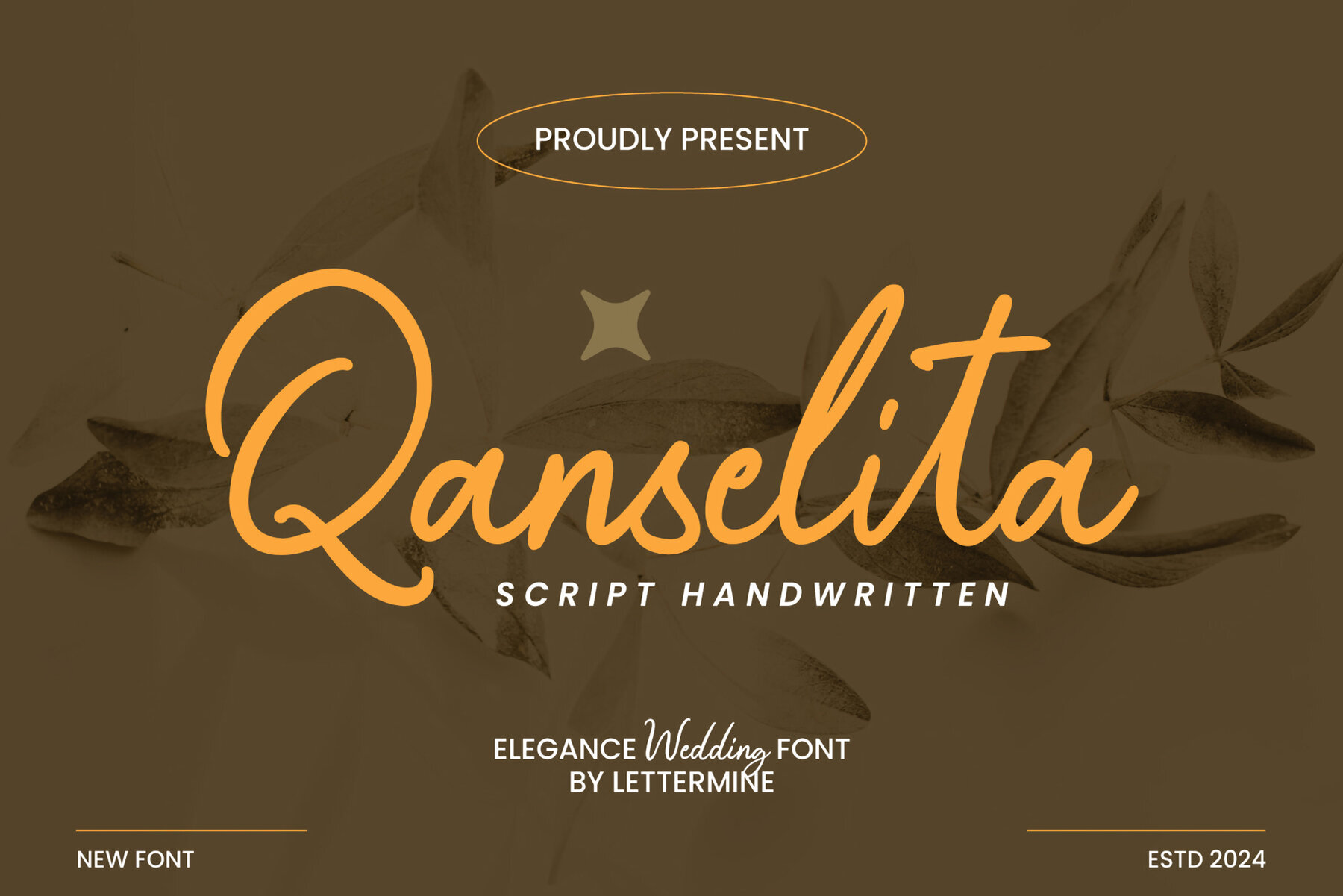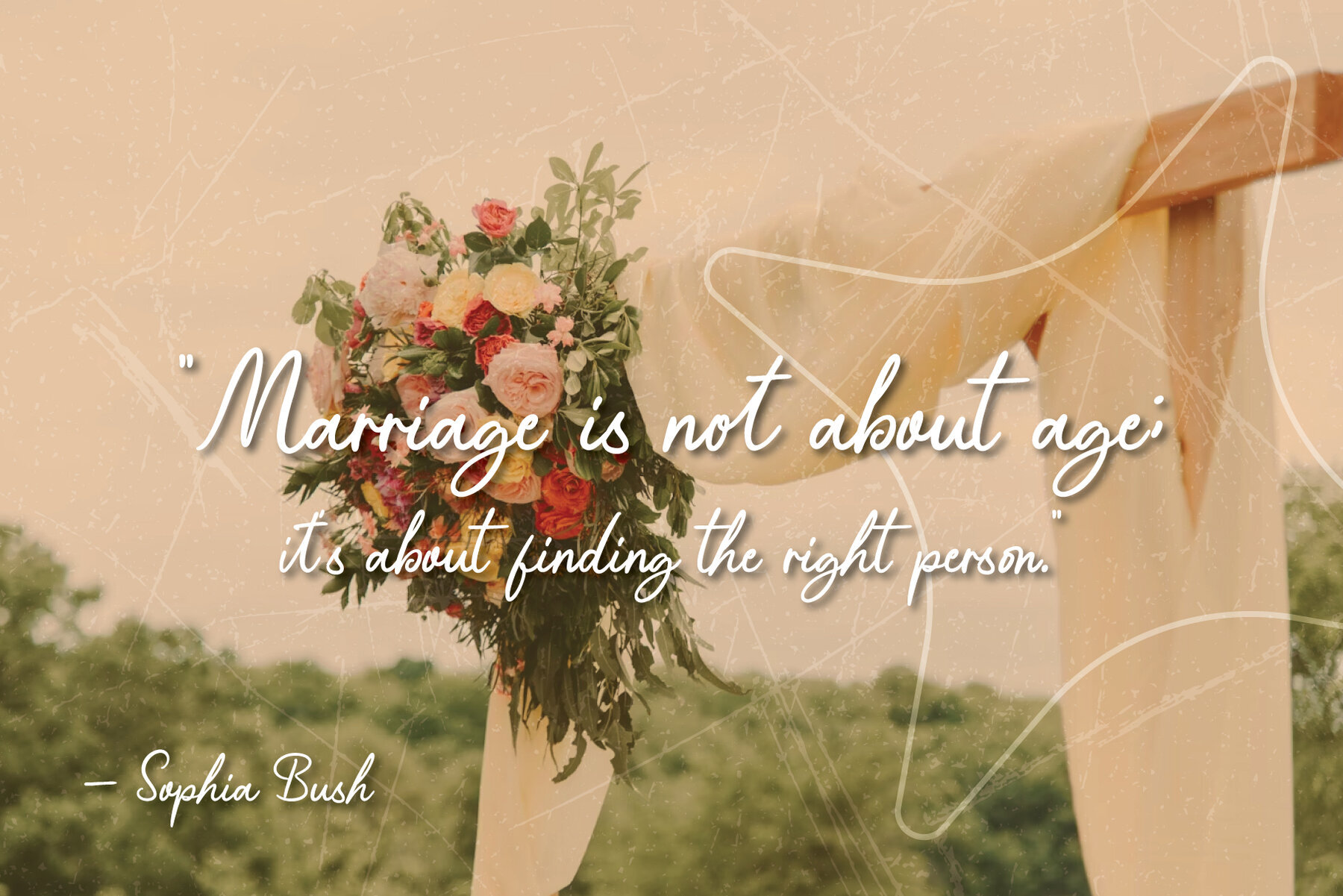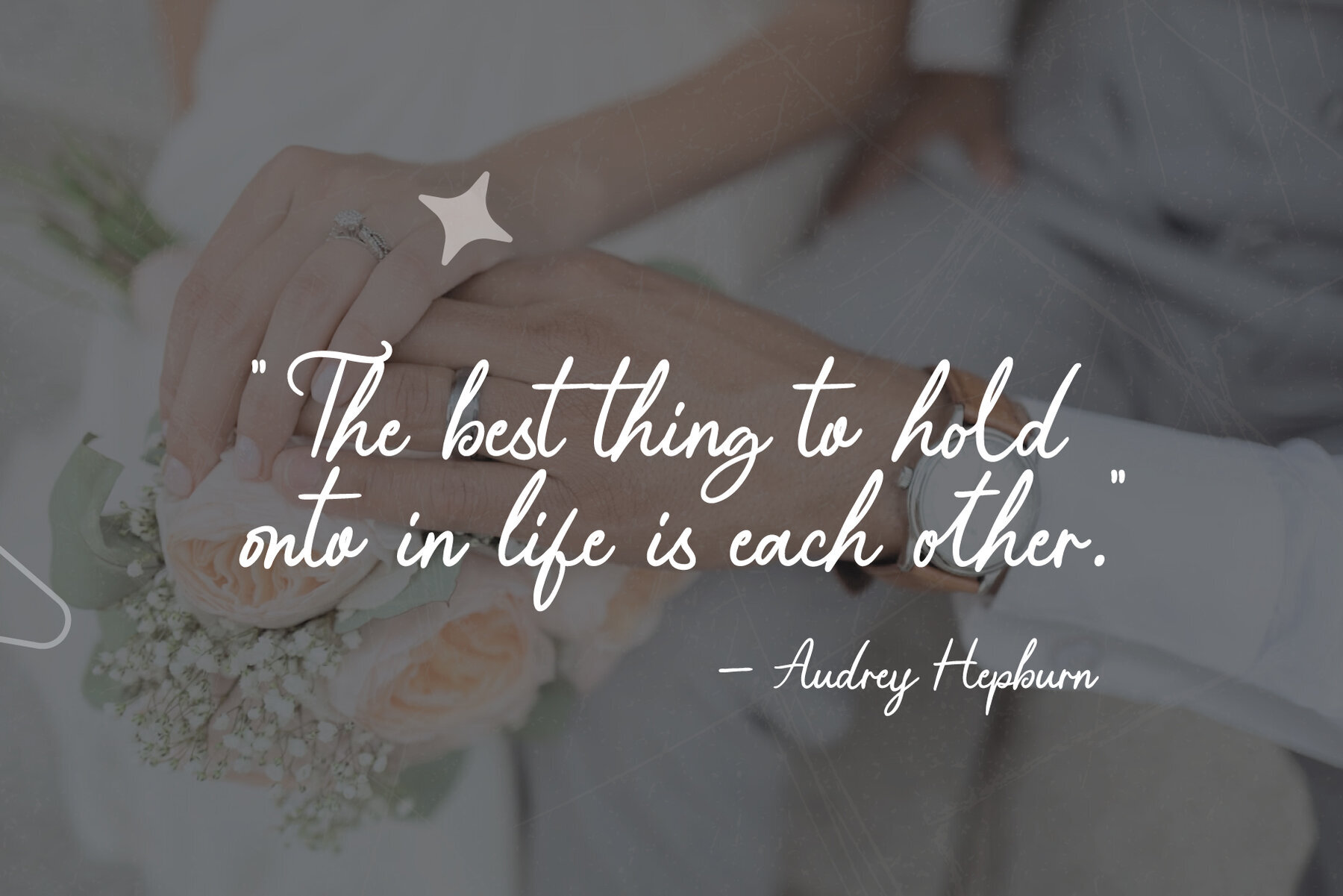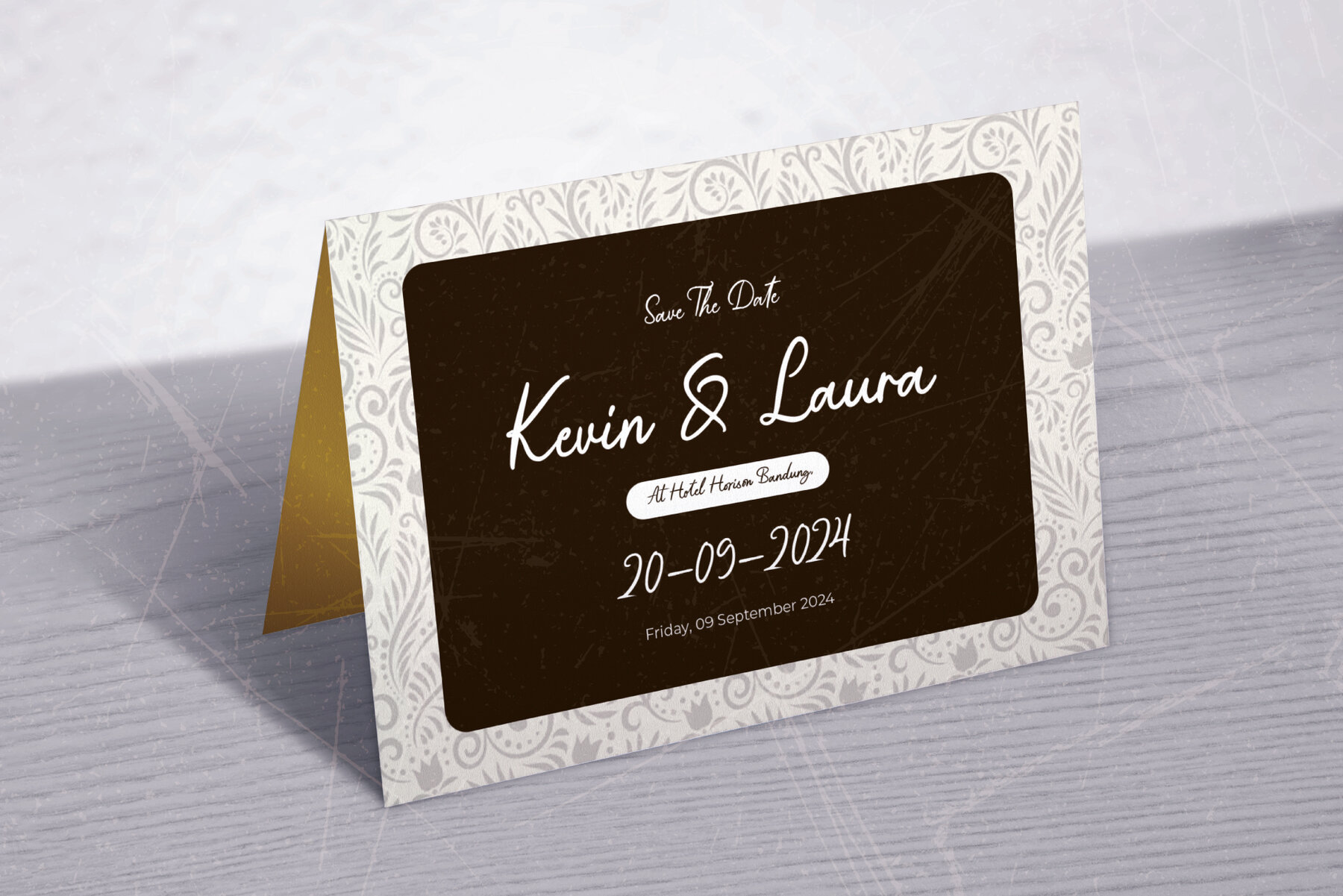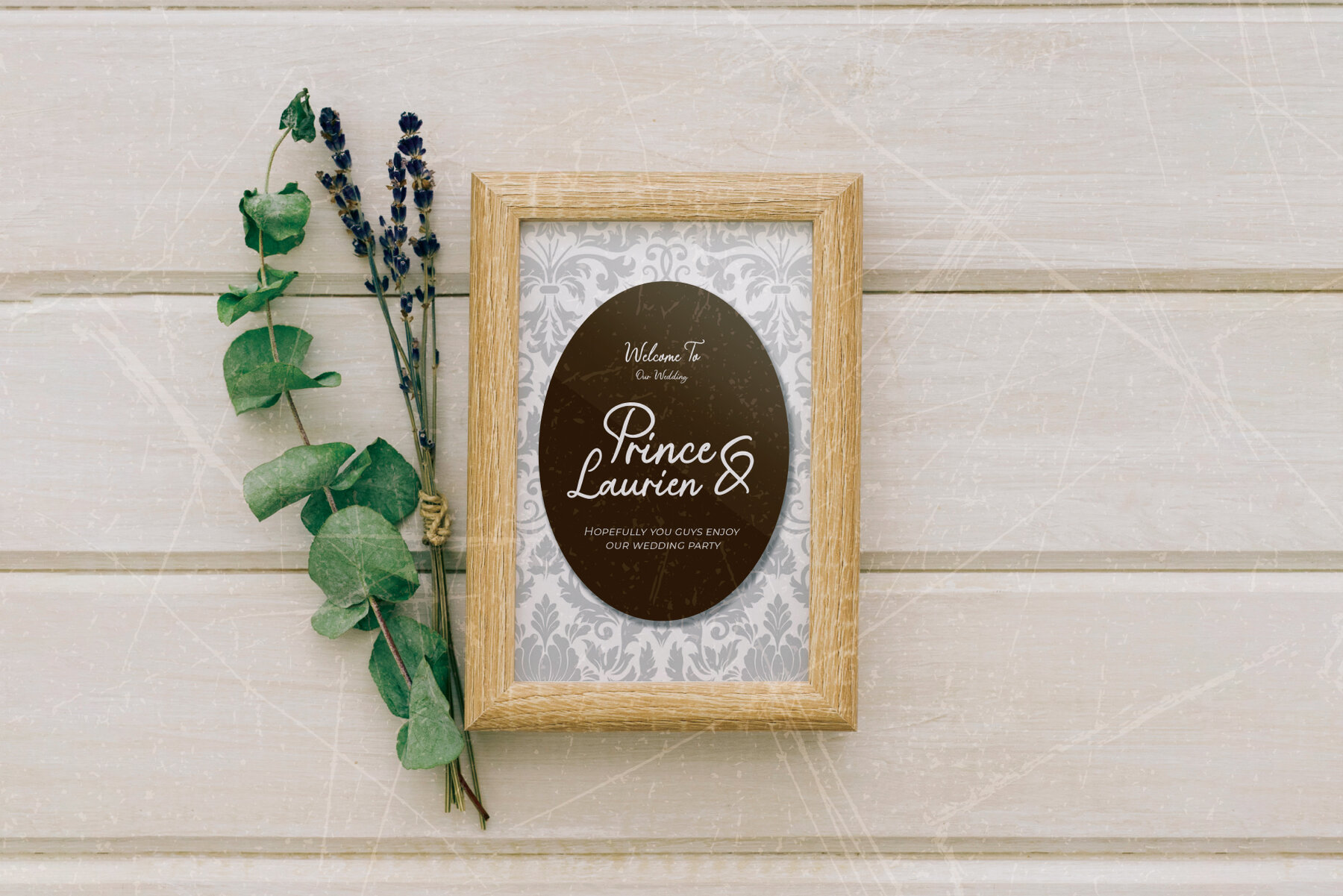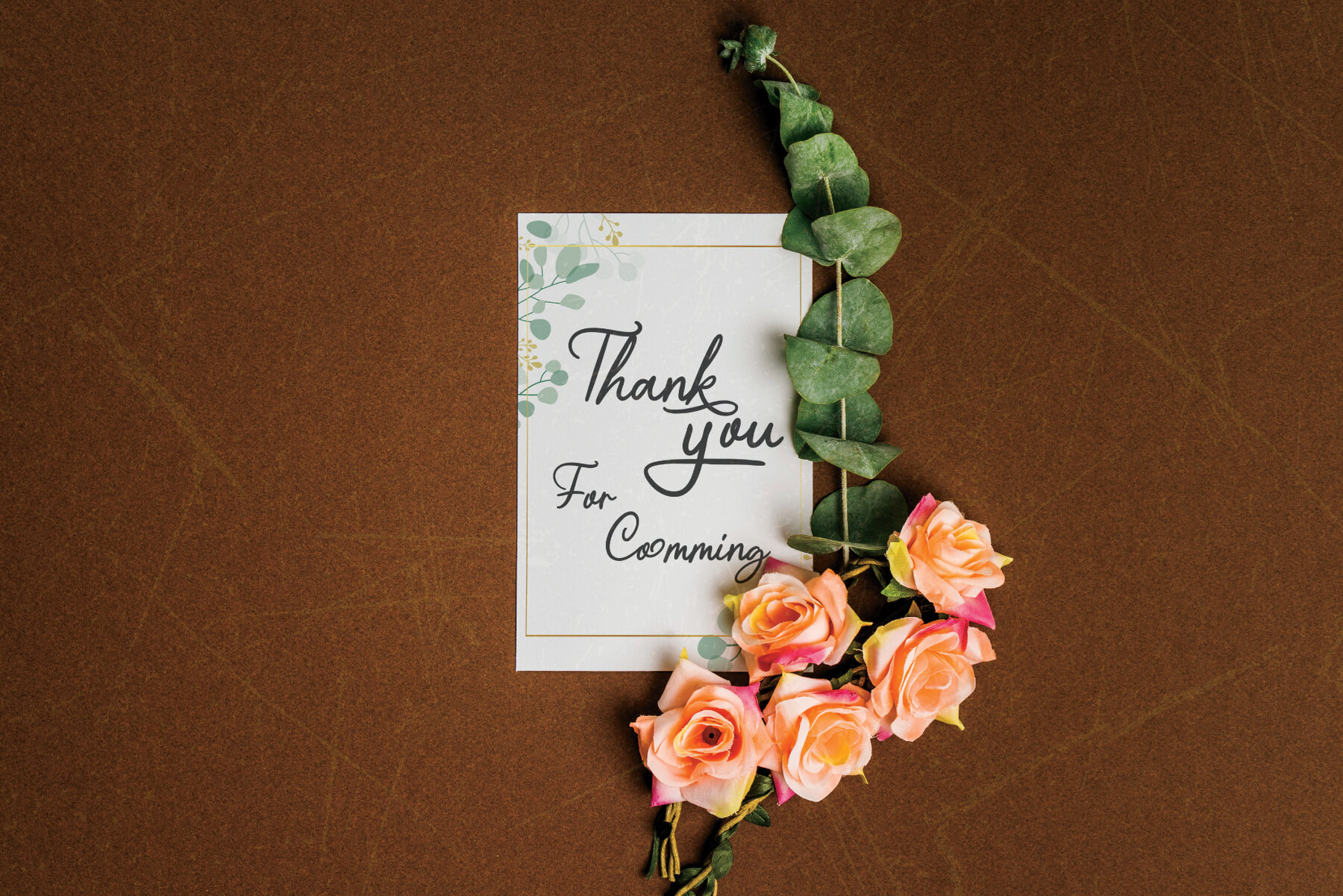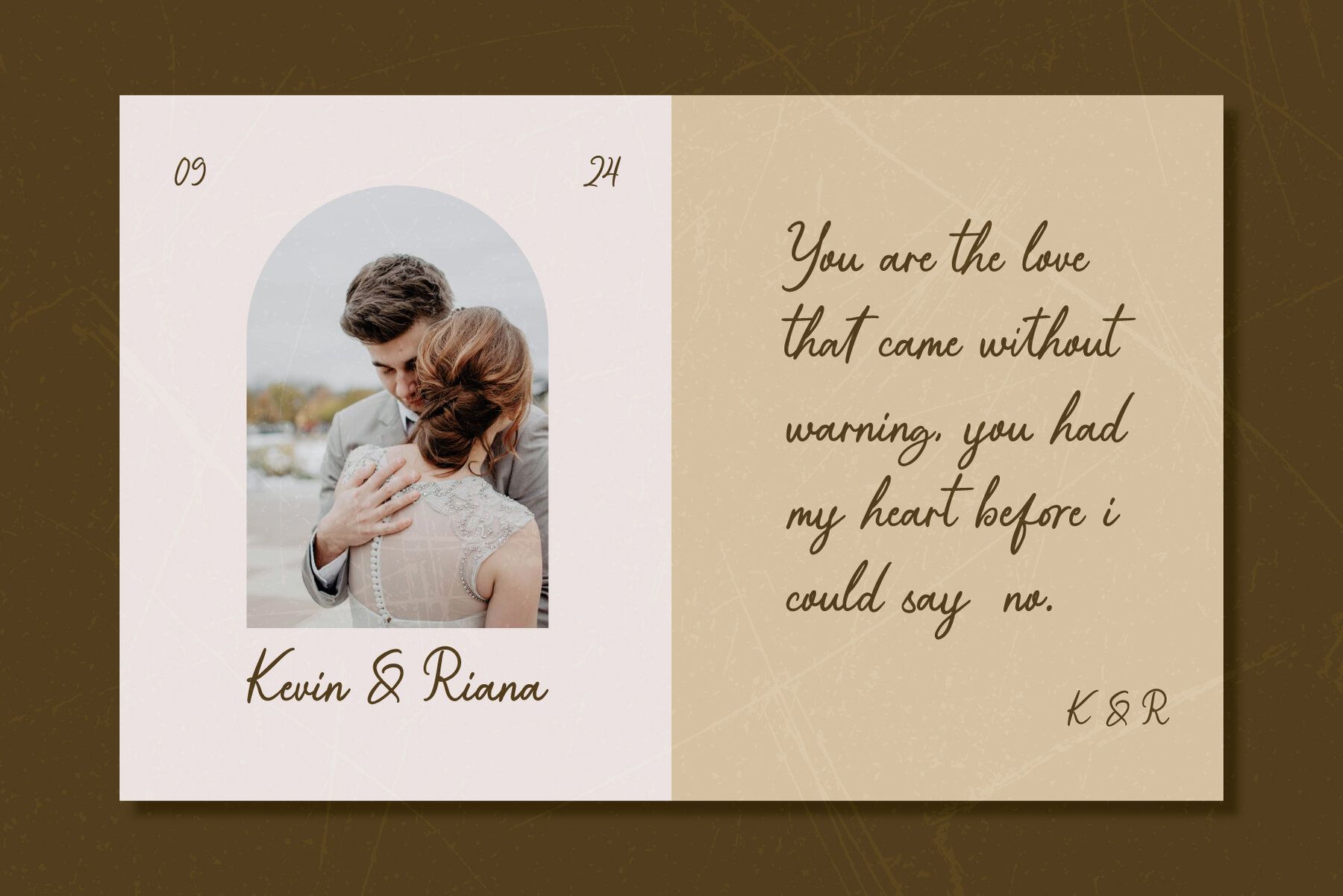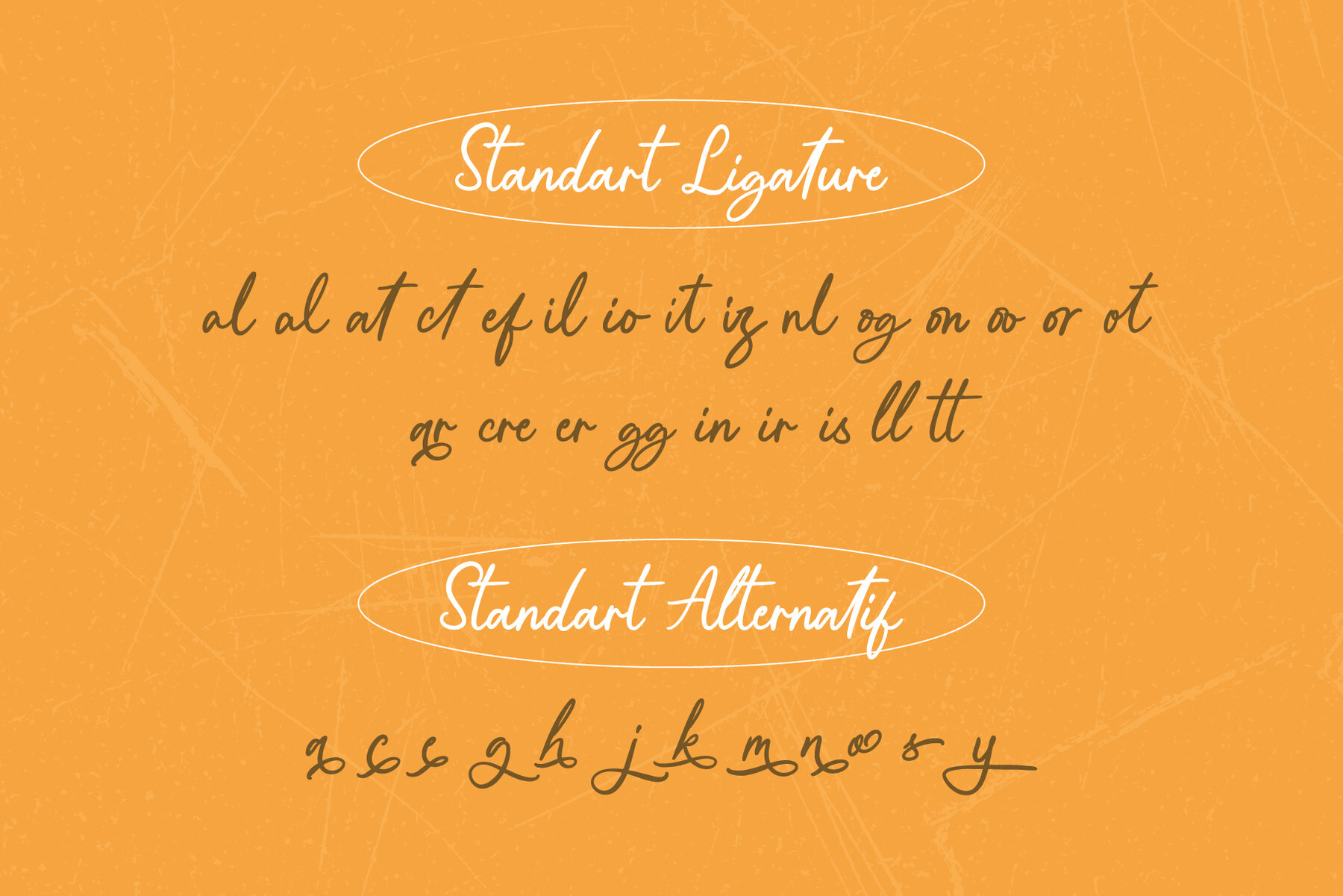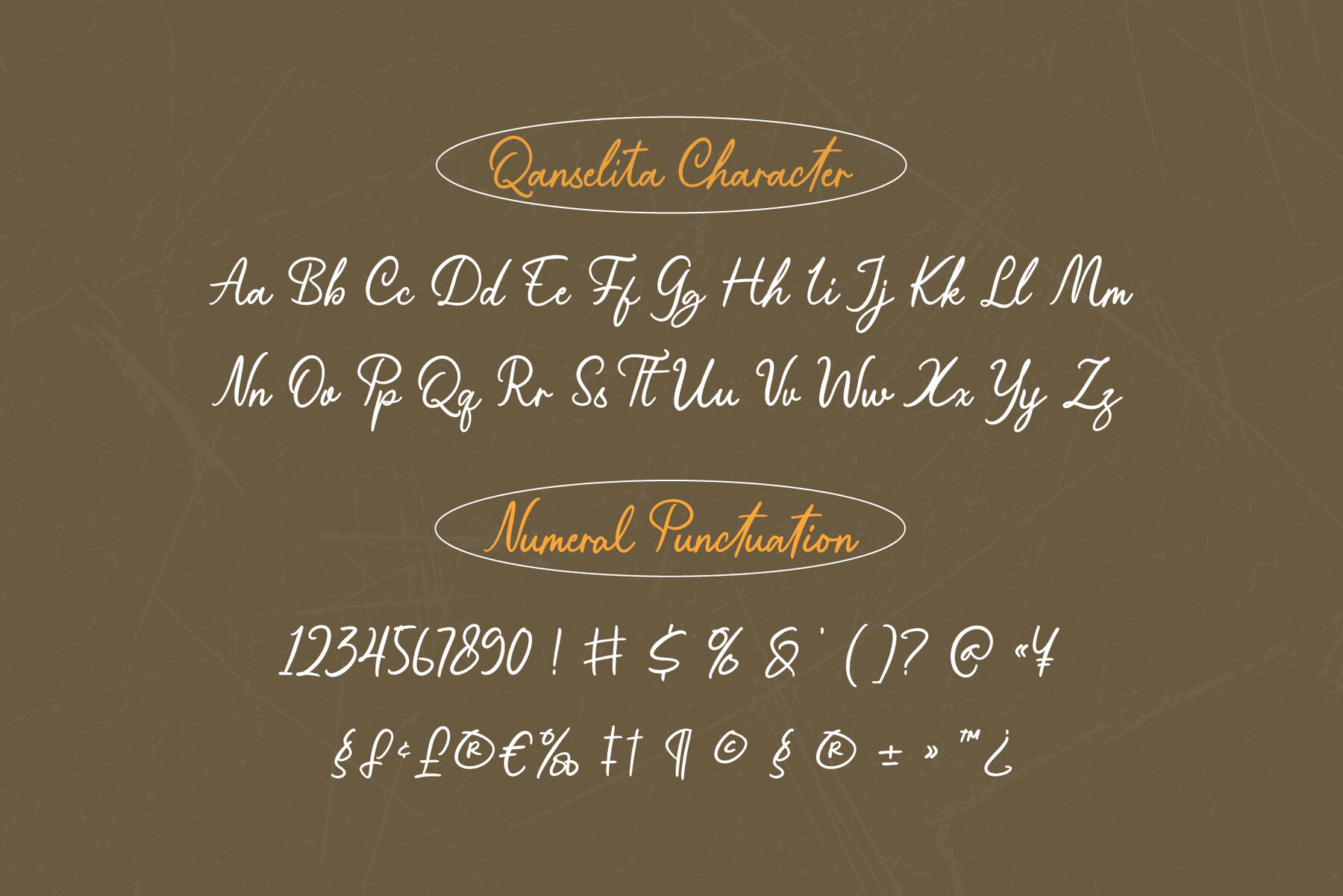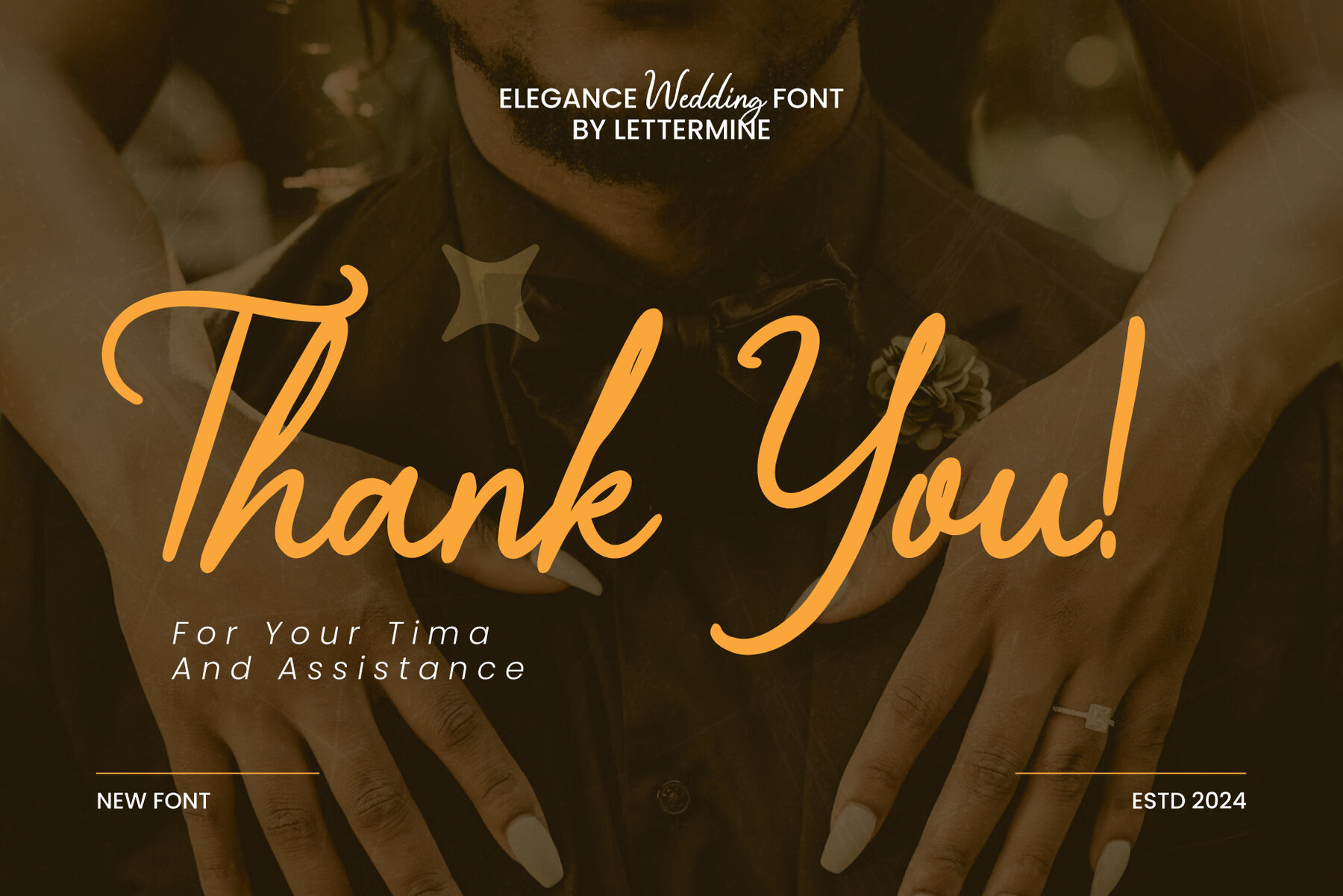
Qanselita Font
Qanselita Regular
Experience the effortless grace of this expertly designed monoline script font, bringing elegance and the fluidity of natural handwriting to your creative projects. Every stroke of this font offers a smooth, harmonious flow that adds warmth and personality, making it an ideal choice for designs that require a blend of simplicity and sophistication.
This font includes a comprehensive set of features such as uppercase and lowercase characters, punctuation, alternatives, ligatures, and multilingual support, ensuring versatility across various design tasks. Let the charm of this handwritten style enhance your work, infusing authenticity and elegance into every line.